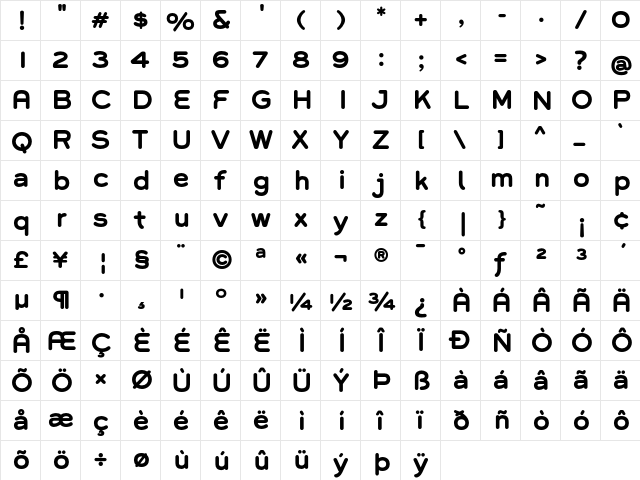
Grover Bold
Design Context for Grover Typeface
Grover takes a measured approach to typography — its balanced proportions and neutral character make it a reliable workhorse for both digital and print work. Its bold stroke weight gives it real presence on the page.
Pro Tip: Pair Grover with a font of contrasting weight or personality to build a more expressive typographic hierarchy.